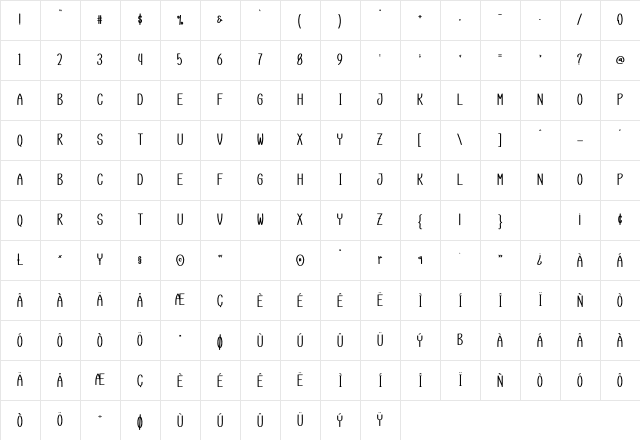
Morning Bakery Regular
Design Context for Morning Bakery
Morning Bakery is a composed and adaptable typeface that performs quietly and consistently across a wide range of design contexts.